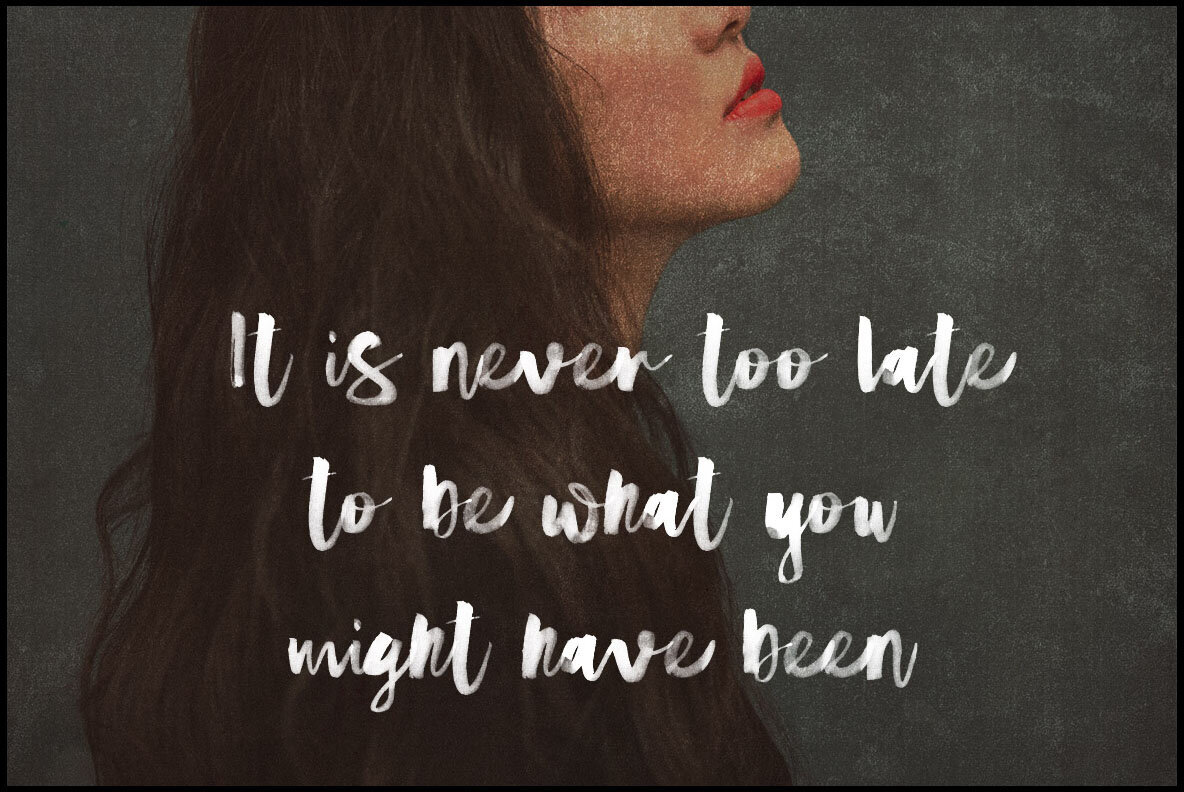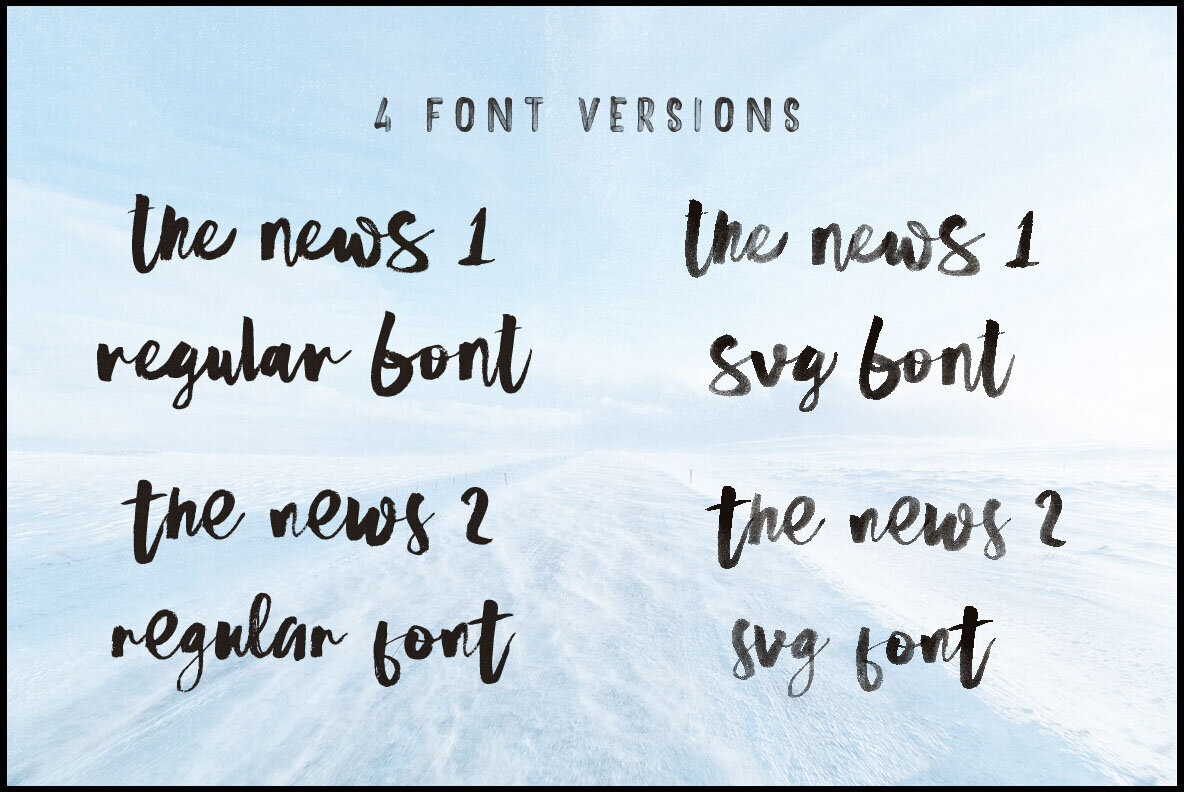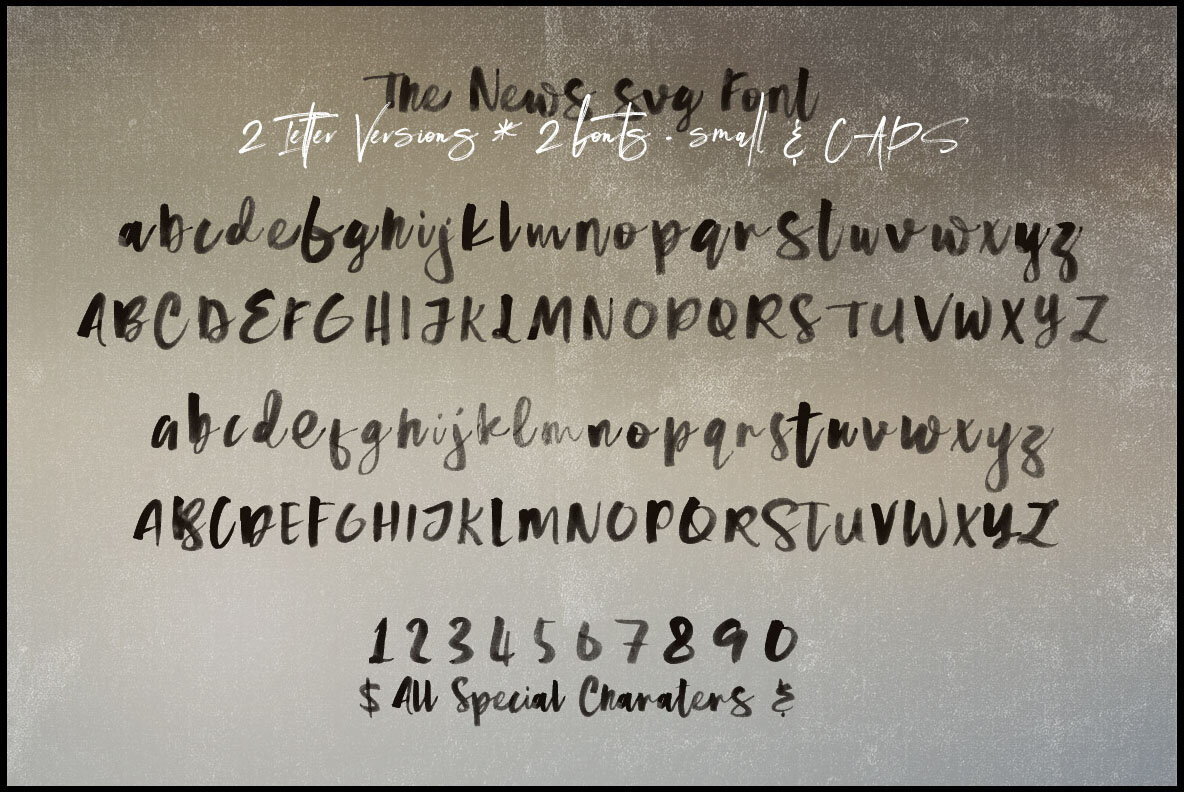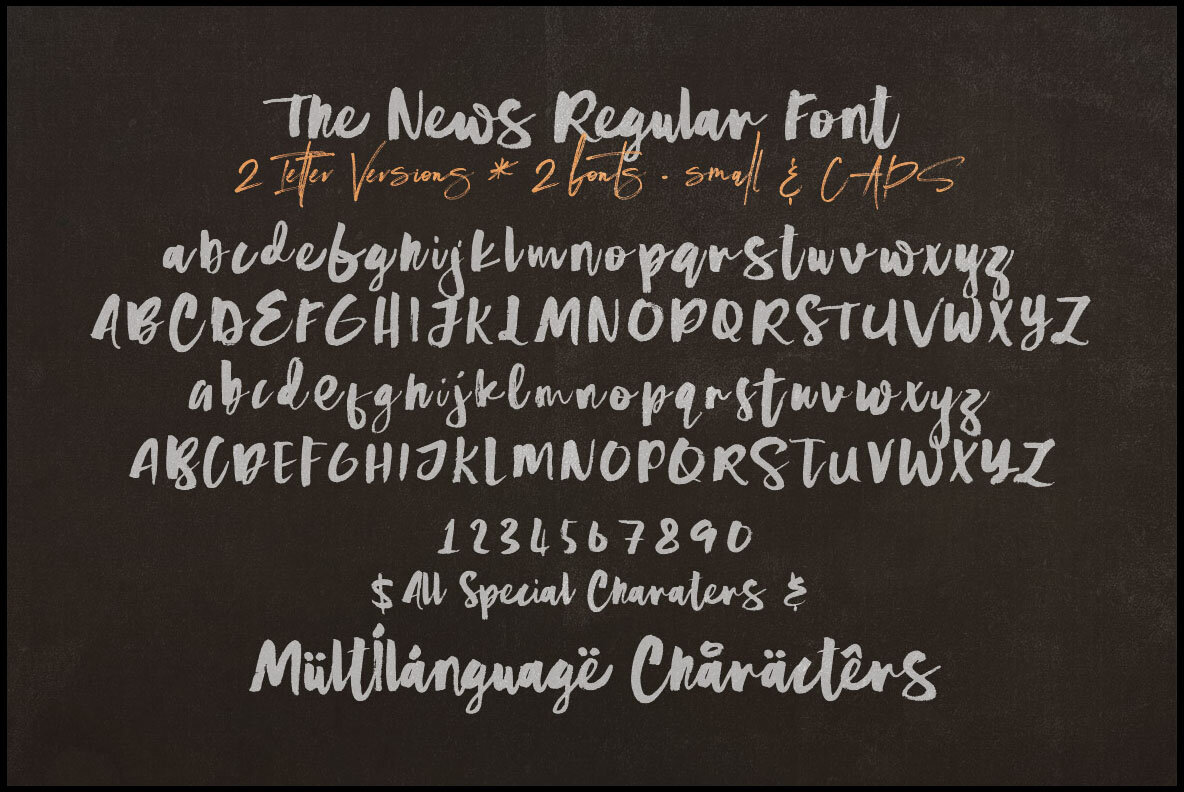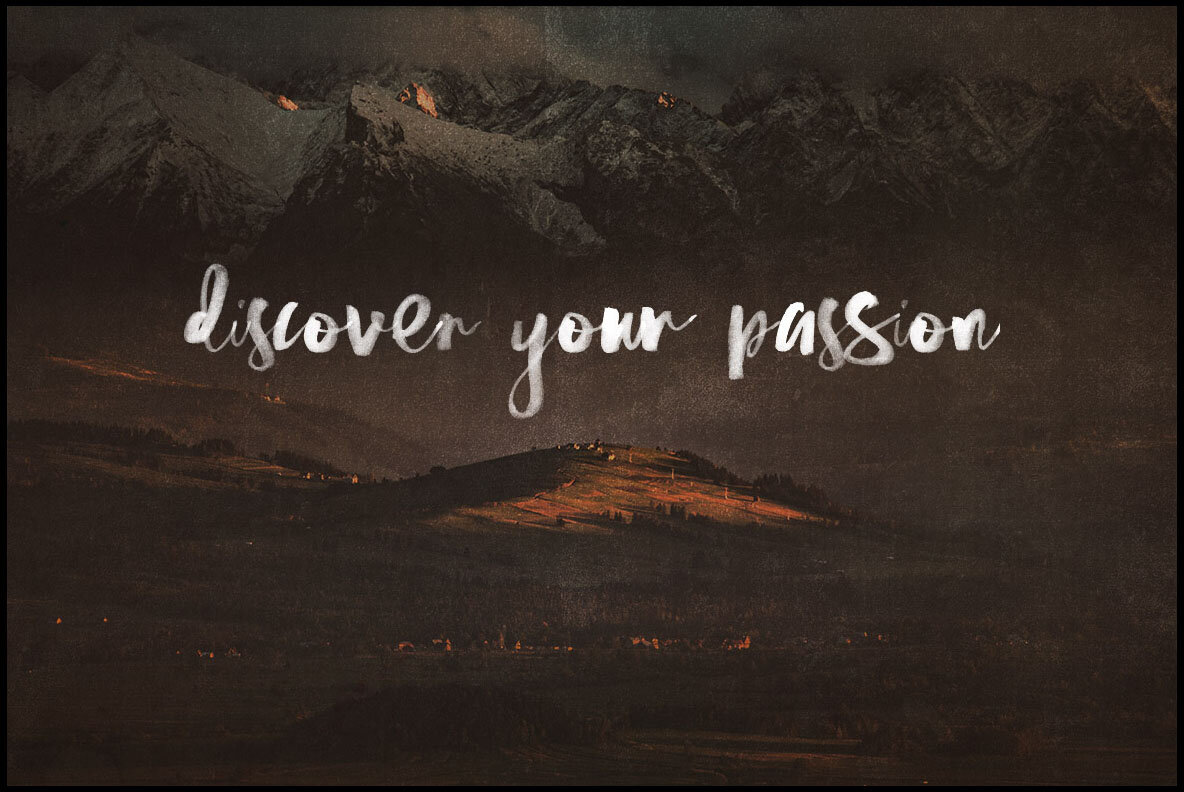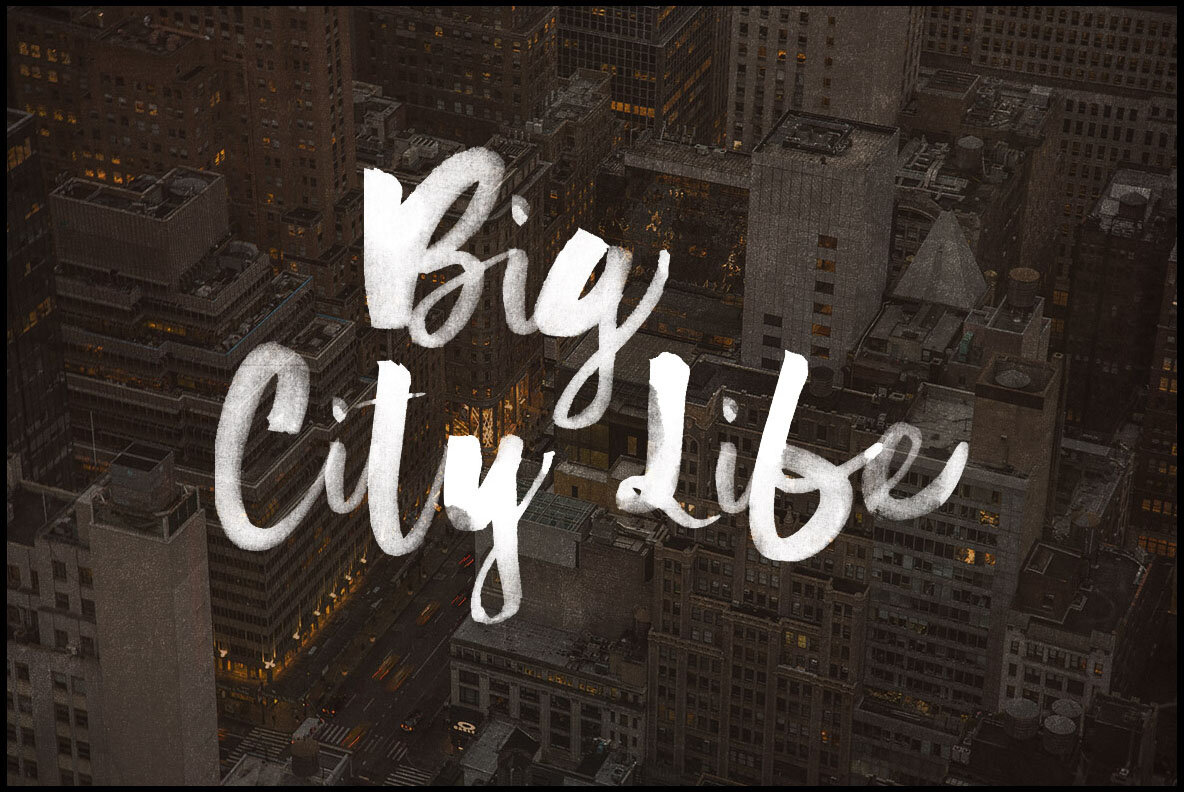
The News Font
Introduce an artistic flair to your new projects with The News, a brush or grunge-style script display font. It is ideal for grunge or artistic themes, adding a unique and creative touch to your designs.The News by Peter Olexa: Brush Style Script Font